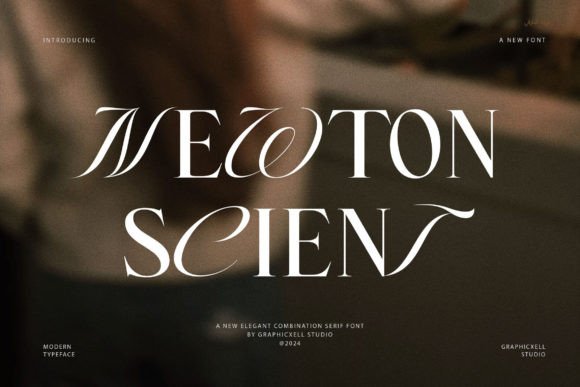
Newton Scient
The first time I saw Newton Scient, it felt like a quiet confidence. It’s not loud or flashy, but there’s a subtle authority in its curves and structure. The letters sit with a balanced rhythm, each stroke contributing to a sense of clarity and professionalism. It's the kind of font that makes you think of editorial design, packaging, and branding—areas where subtlety and sophistication matter.
Newton Scient is a serif font, but it doesn’t lean into the traditional grandeur of classic serifs. Instead, it offers a modern take on serif typography with clean lines and a refined character. This makes it versatile enough for both digital and print projects, though its strength lies in visual storytelling rather than decorative flair.
In logo design, Newton Scient can be a powerful choice when used sparingly. Its presence is strong enough to make an impact without overwhelming the viewer. However, it’s important to consider how it pairs with other typefaces. For instance, pairing it with a sans serif font like Montserrat or Lato can create a dynamic contrast that works well in brand identity systems. It’s also worth noting that Newton Scient performs best in uppercase, as its lowercase forms are less distinct and may lose some of their visual weight in certain contexts.
When it comes to packaging design, Newton Scient adds a touch of elegance. It’s ideal for premium products where the typography needs to convey quality and craftsmanship. Testing it in black and white is crucial here, as the contrast between the ink and paper can significantly affect readability. Also, ensuring that the font remains legible at smaller sizes is essential, especially for product labels and tags.
On web design, Newton Scient holds its own. It’s not overly heavy, which means it renders well across different screen sizes and resolutions. However, designers should always test it in various environments, including mobile devices, to ensure consistency. When using it for website headers or blog graphics, it’s best paired with a sans serif font for balance. A common pairing might be Newton Scient for headlines and a clean sans serif like Open Sans for body text.
For social media graphics, Newton Scient can elevate the tone of a brand. It’s particularly effective in posters, flyers, and invitations where a professional yet approachable feel is desired. But care must be taken when using it for short phrases or quotes. The font’s structure allows for clear communication, but overuse in decorative elements could dilute its intended message.
In editorial design, Newton Scient shines. Whether it's for magazine covers, book titles, or newsletter headers, its structured form provides a sense of reliability and trust. It's also worth considering how it looks next to other fonts. A comparison with a script font like Playfair Display or a handwritten font like Great Vibes can highlight its versatility and help determine the best font pairing for a given project.
Readability is key when working with any font, and Newton Scient is no exception. While it’s highly readable in larger sizes, it may require more spacing in smaller text. Designers should always check small-size readability, especially when using it for supporting text or footnotes. Additionally, testing it beside other typefaces can reveal how it interacts with different styles and whether it maintains its integrity in mixed-type layouts.
When using Newton Scient for brand identity, consistency is paramount. It should be used consistently across all touchpoints—website, print materials, social media—to reinforce brand recognition. However, it’s important to use it strategically. Avoid using it for everything; instead, reserve it for headlines, logos, and key messaging to maintain its impact.
Newton Scient is a premium font, and its commercial licensing should be confirmed before client or business use. This ensures that the font can be used across multiple platforms and formats without legal complications. It’s also worth noting that while it’s a display font, it can function effectively as a body text font if used with proper spacing and sizing.
Overall, Newton Scient is a thoughtful choice for designers looking to add a touch of sophistication to their projects. It’s not just a font—it’s a tool that can shape the visual language of a brand. Whether you're working on packaging, editorial design, or digital assets, Newton Scient offers a reliable and elegant solution that balances style with functionality.